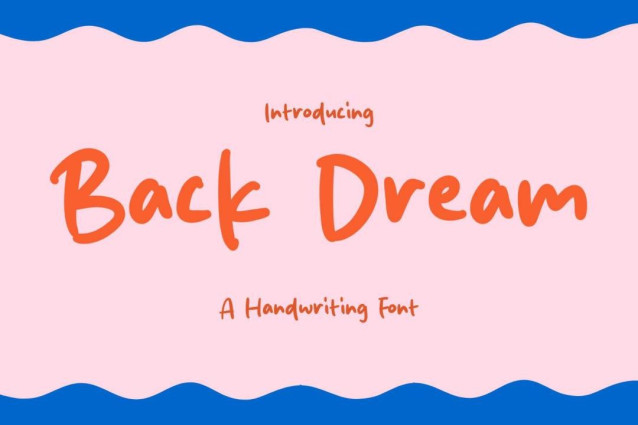
Back Dream Handwriting Font
Back Dream Handwriting Font is a simple and friendly handwritten font. Its natural and unique style makes it incredibly fitting to a large pool of designs. The only limit is your imagination!